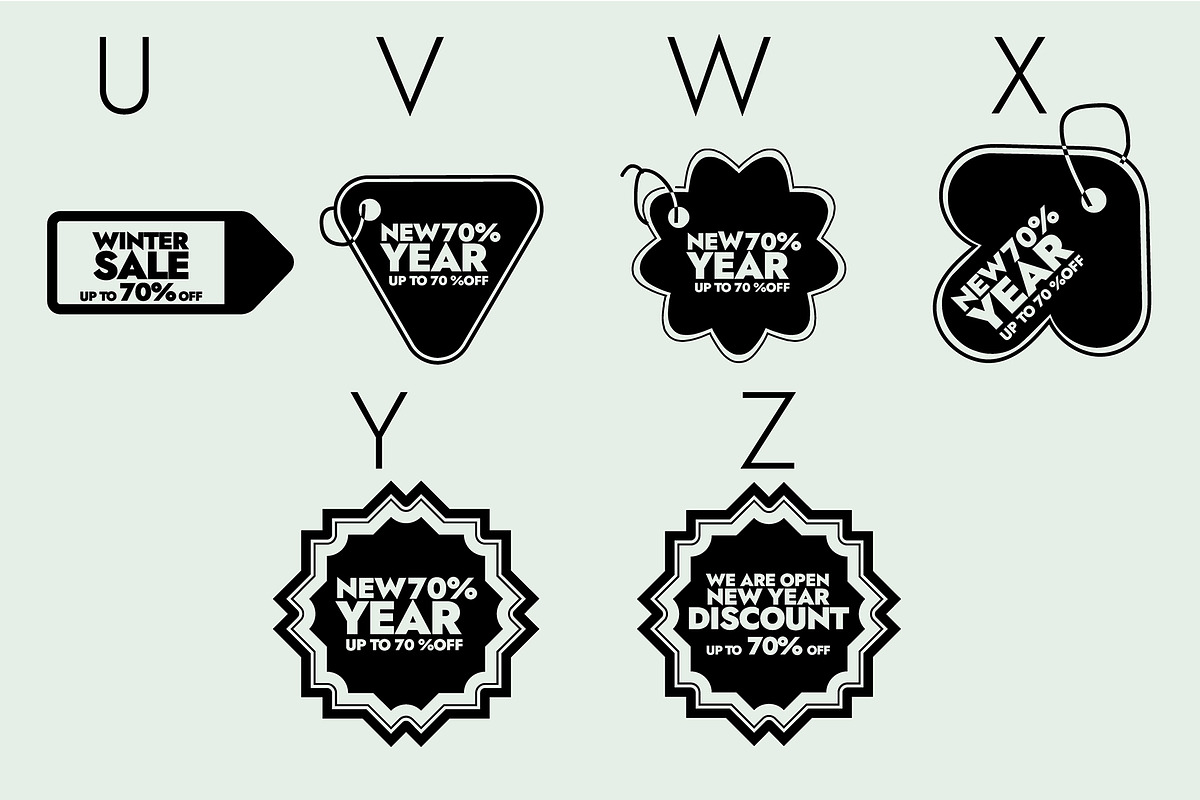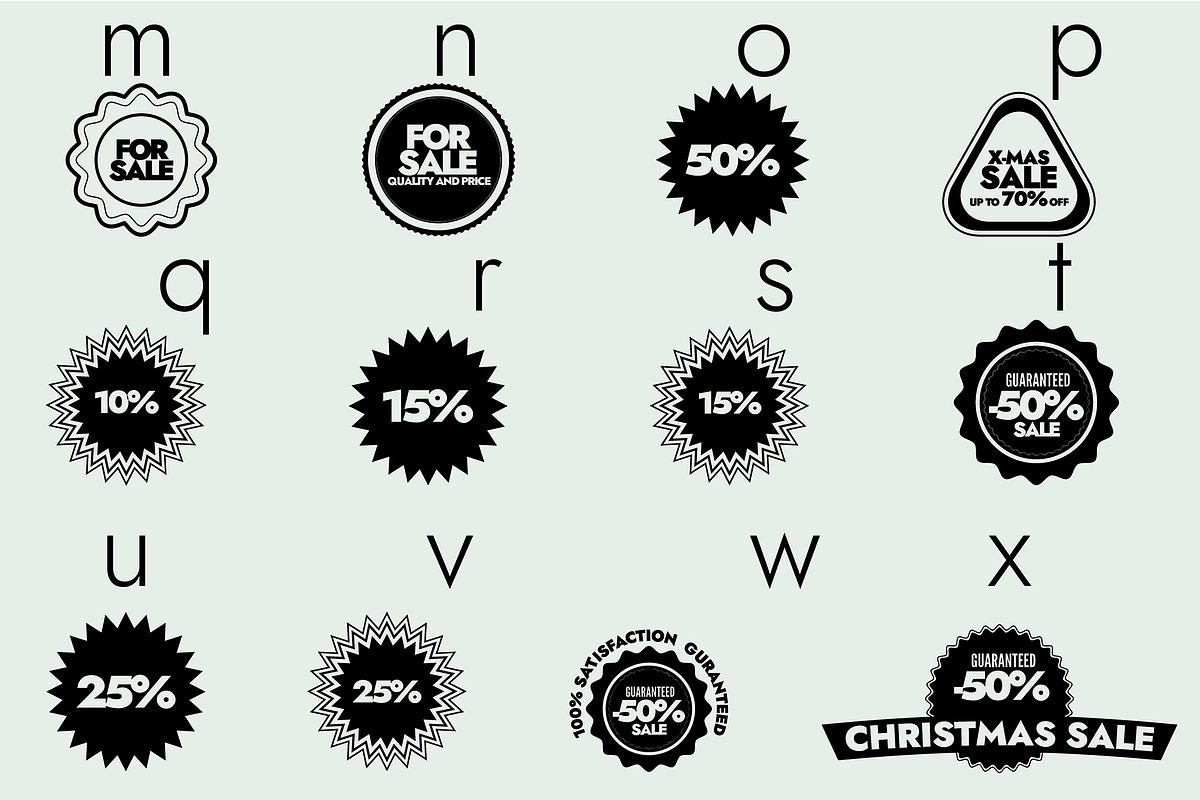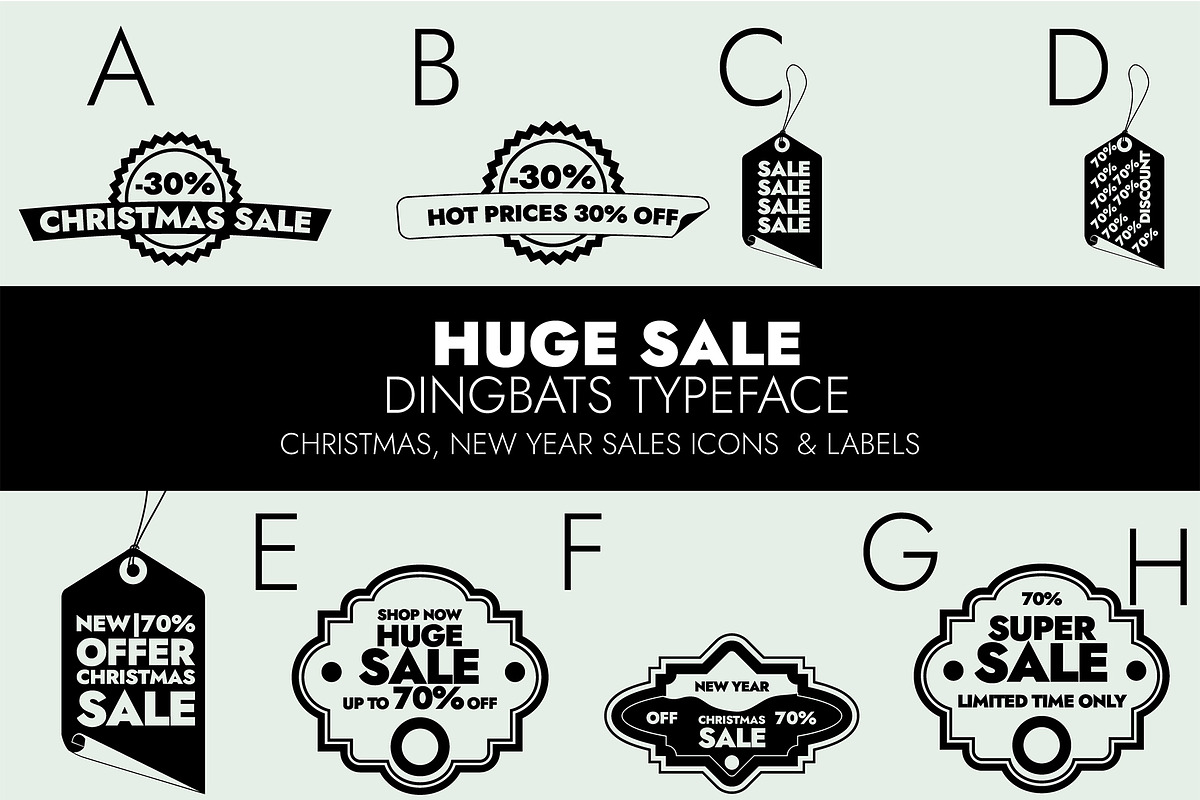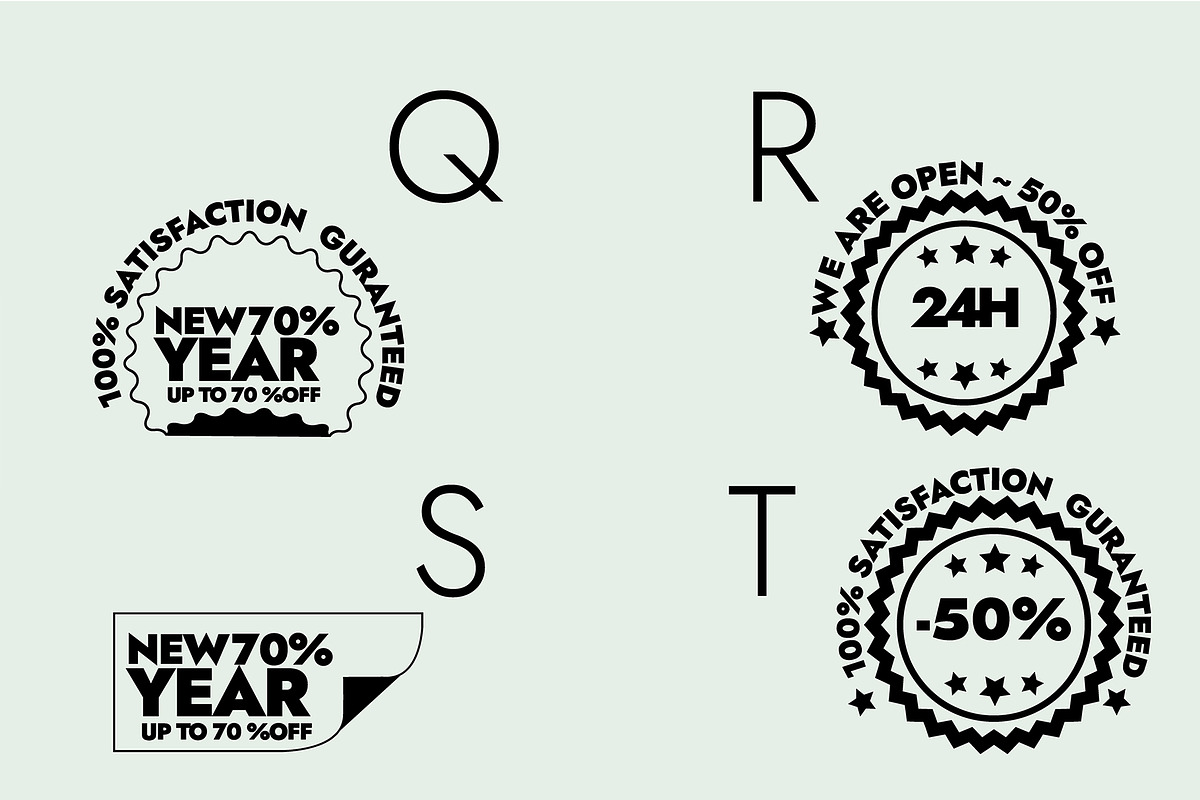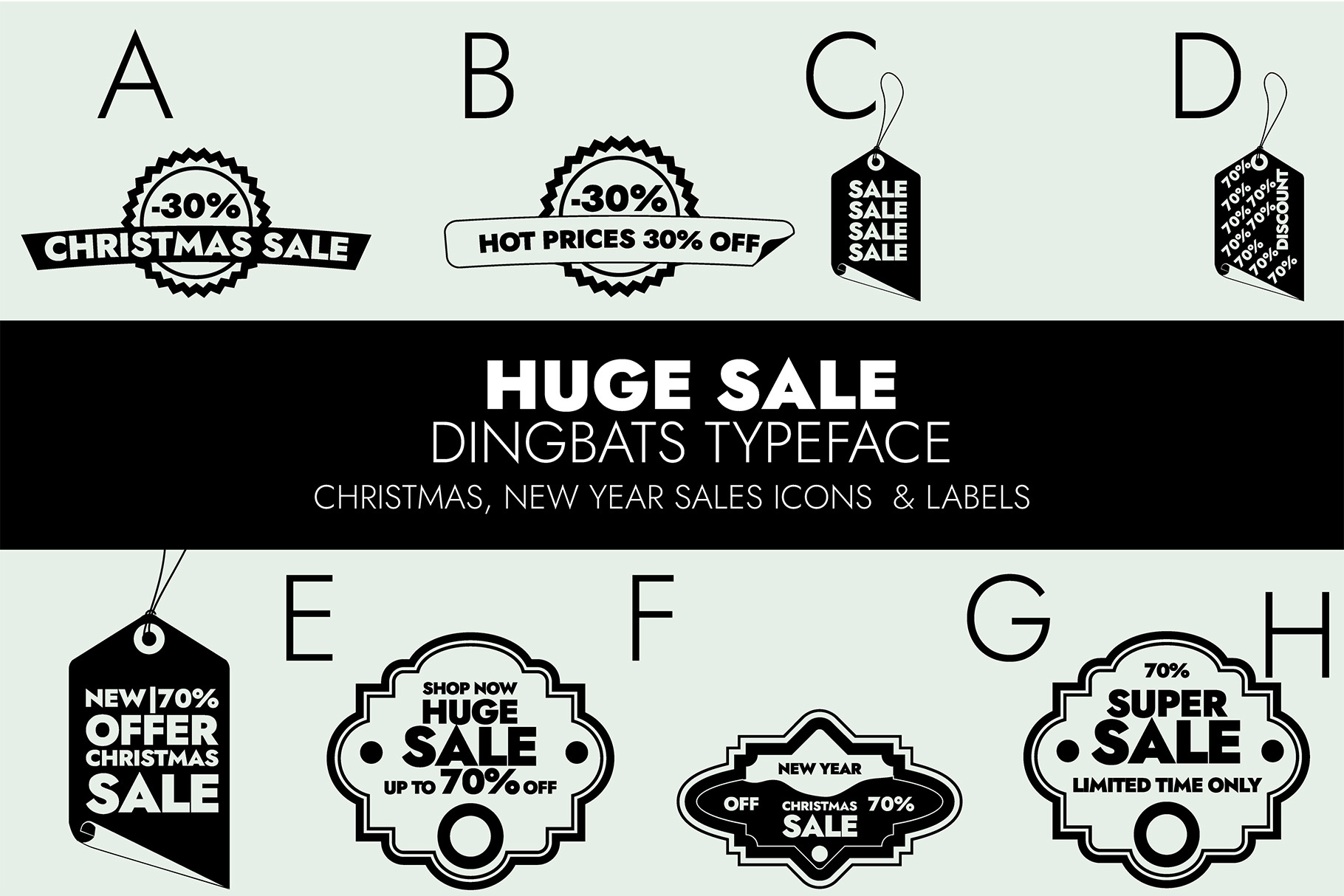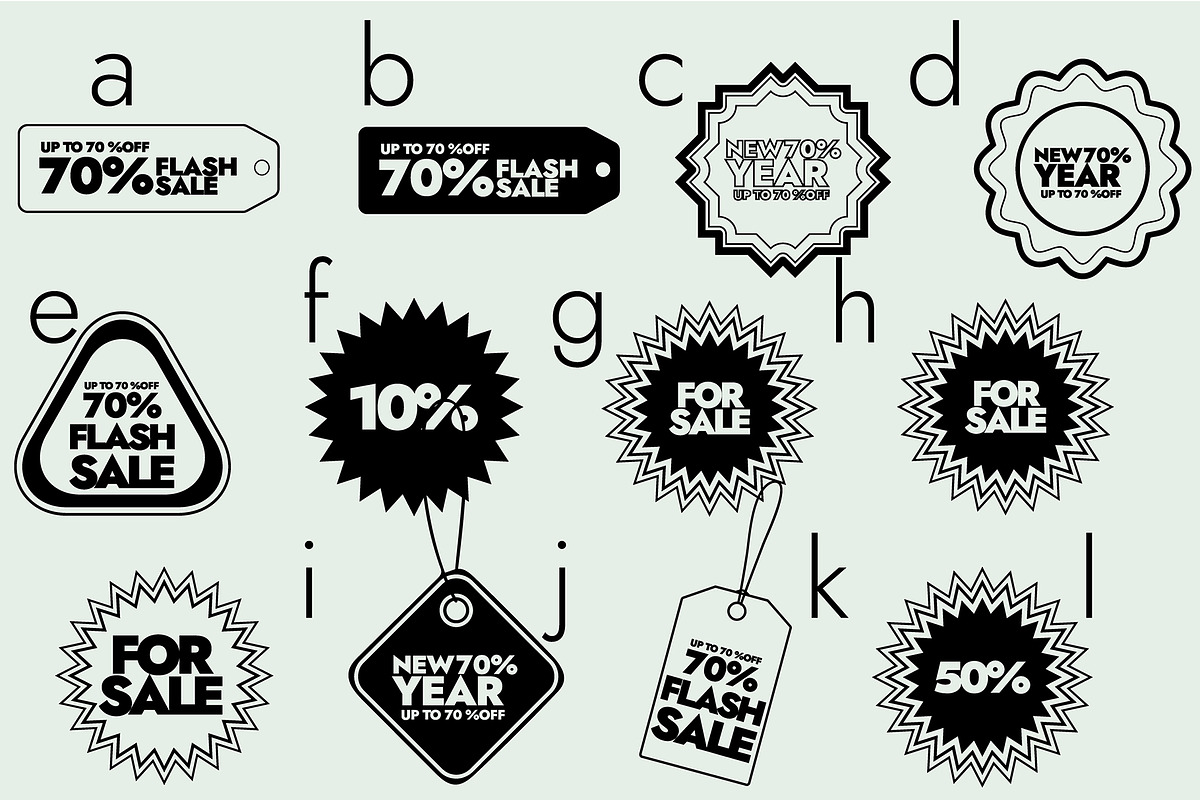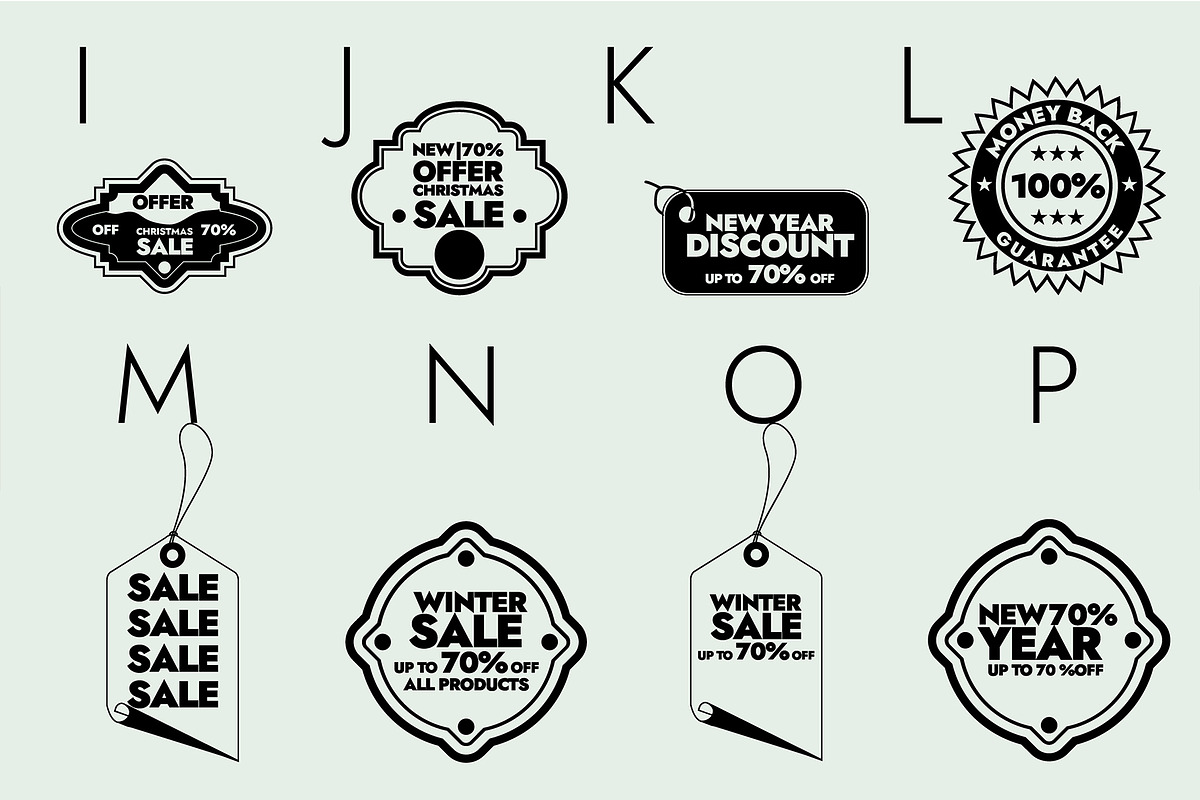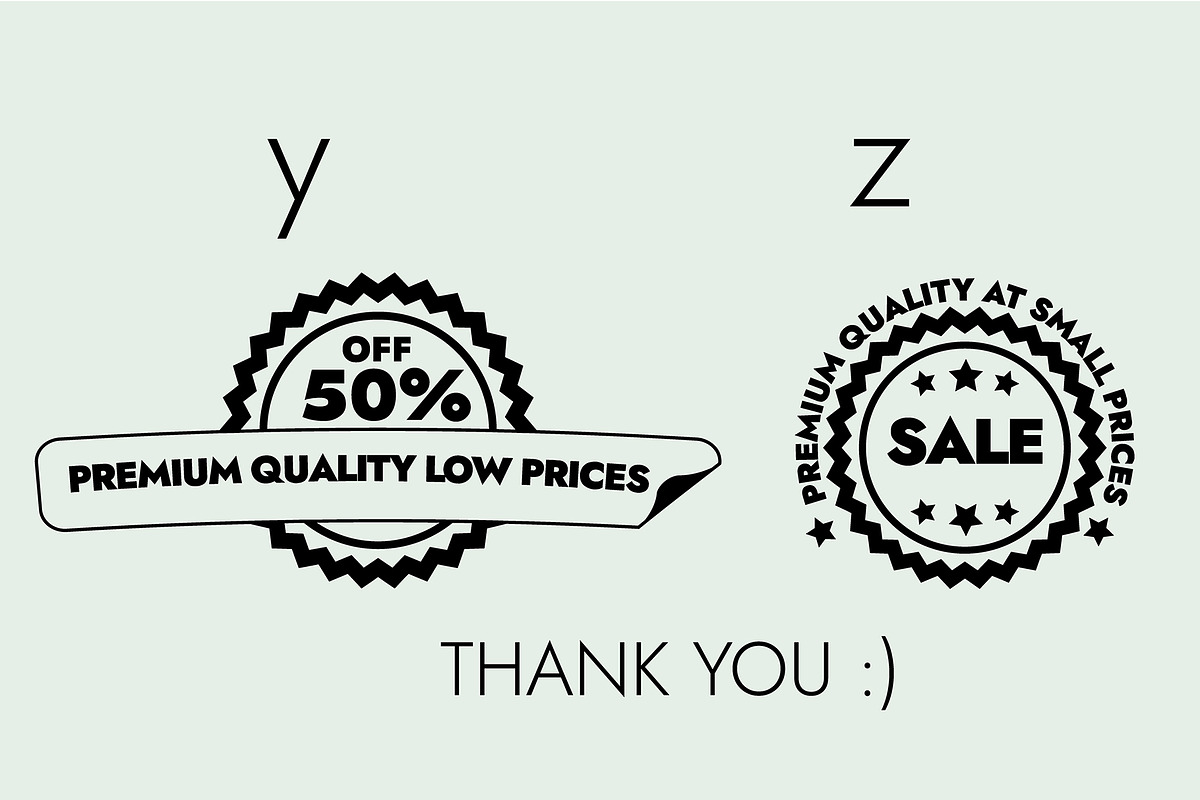
Sales Special Offers Dingbats Font
“Sales special offers” is a unique and entertaining dingbats font, so useful for small or big companies. Use this typeface for Christmas sales, new year discounts, evergreen discounts, or more.